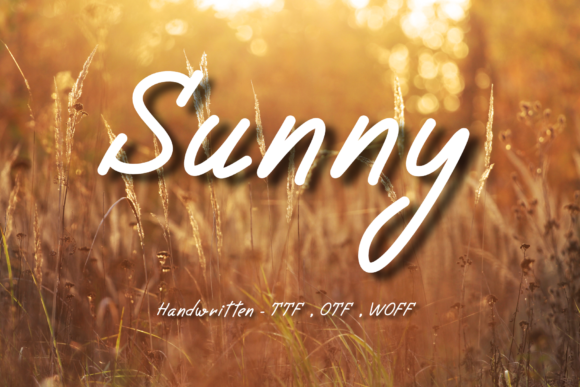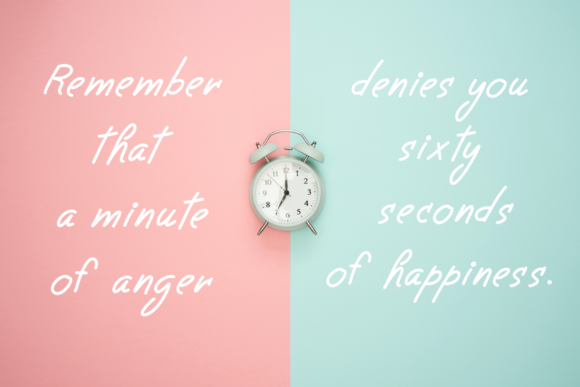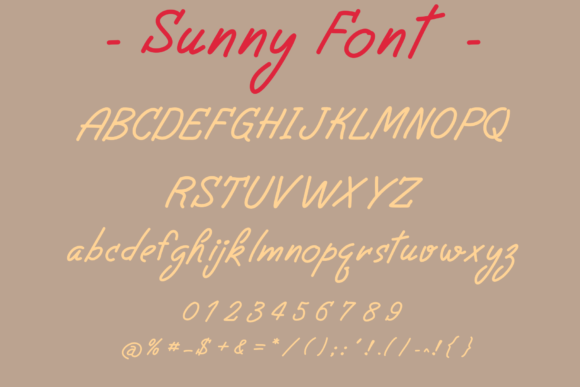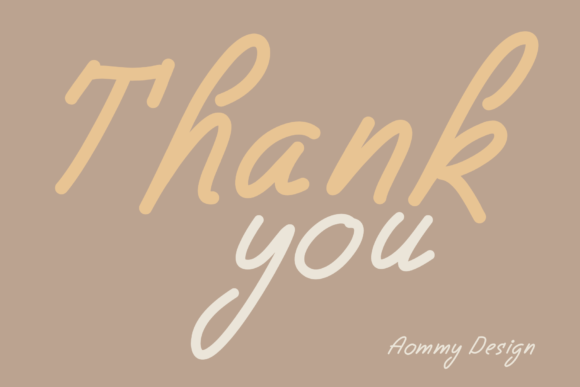
Sunny Font
Sunny is a font that exudes simplicity, naturalness, and a flowing charm in its delightful handwritten style. With its balanced and varied appearance, this font becomes the perfect choice for enhancing the beauty of your projects, adding a touch of elegance and authenticity.
The simple, natural, and flowing handwritten style of Sunny brings a sense of ease and grace to your designs. Each letter carries the smooth and artistic touch of handwriting, making your work stand out with a touch of genuine beauty and allure.
With Sunny as your creative tool, you have the freedom to explore various design ideas. Whether you’re working on projects that require a natural and flowing vibe, creating designs that exude a sense of simplicity and authenticity, or adding a touch of elegance to your work, Sunny adapts effortlessly to bring a sense of versatility and charm to your designs.
Embrace the balanced and varied style of Sunny and witness how it enhances your creations, making them truly captivating works of art. Its natural and flowing nature adds a touch of authenticity, making your designs stand out with a sense of genuine beauty and grace.
Discover the joy of creating with Sunny as your trusted companion. Let its handwritten appearance be the key to unlocking your creativity and infusing your work with a sense of natural elegance and allure.
Whether you’re designing for personal projects or professional endeavors, Sunny is the font that adds that extra touch of flair and authenticity to your creations. Embrace the simplicity and flowing charm of Sunny and notice how it enhances the appeal and impact of your designs, making them truly special and unforgettable.
Let Sunny be the font that sparks your inspiration and brings a touch of elegance and naturalness to your designs. Experience the magic of Sunny and witness how it elevates your creative projects, making them truly beautiful and filled with a sense of authentic charm and grace.